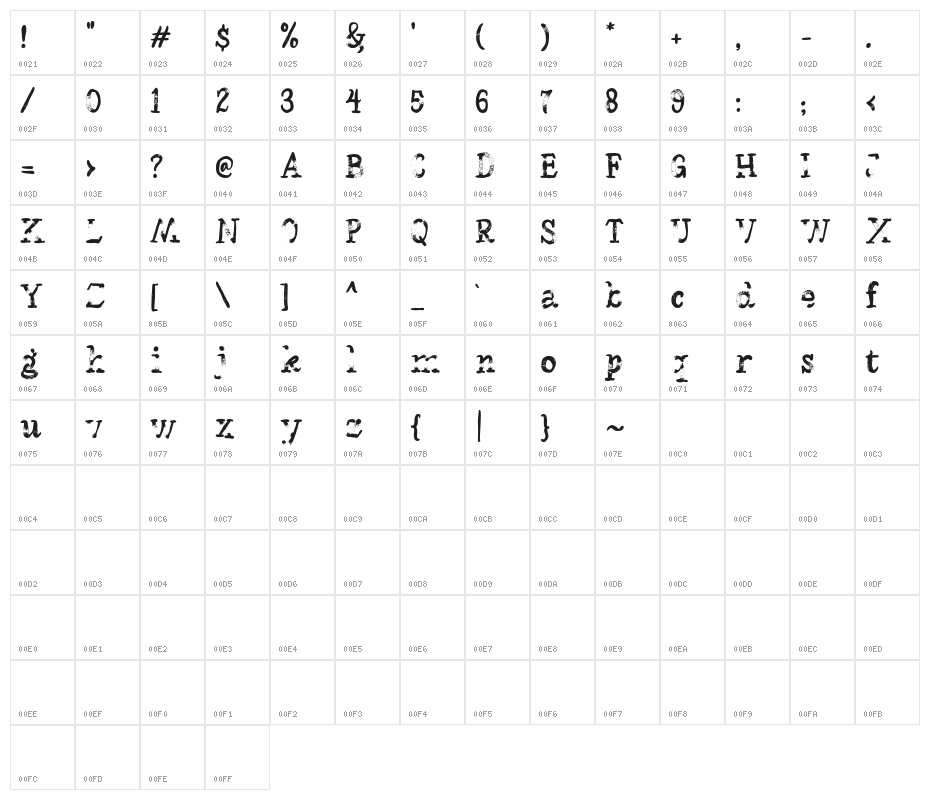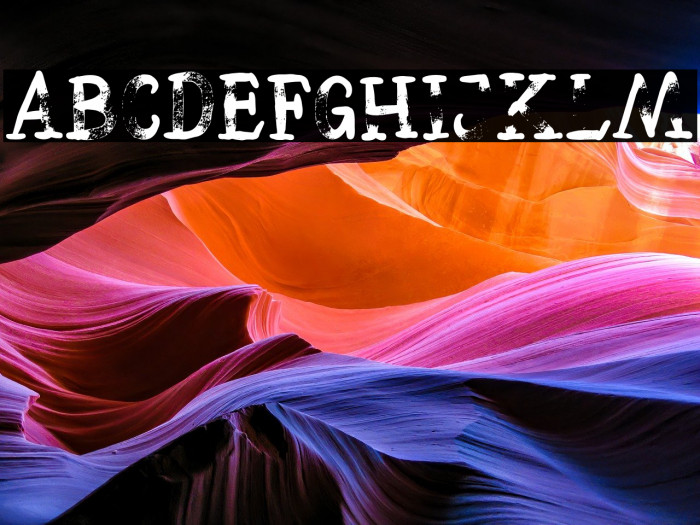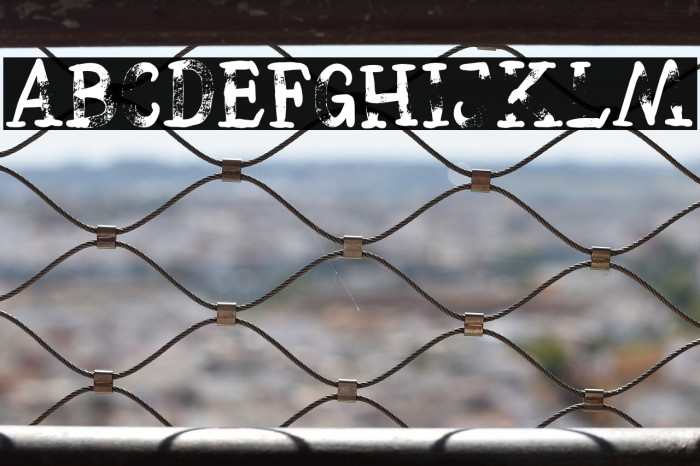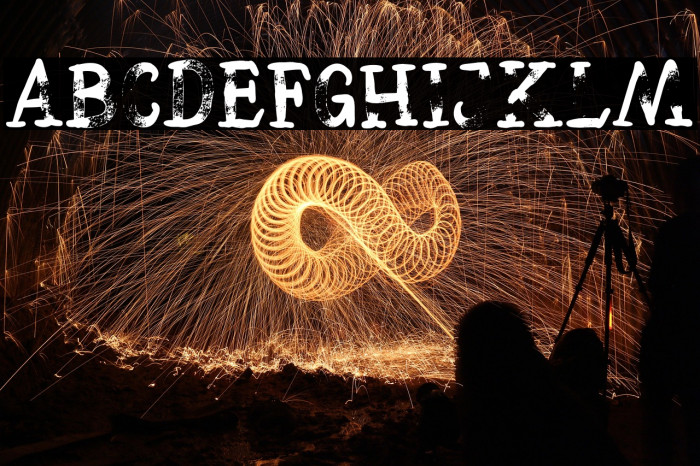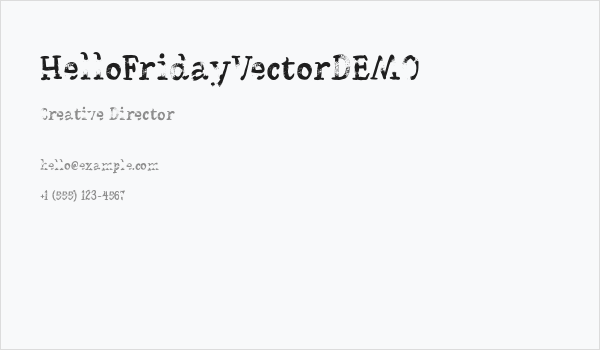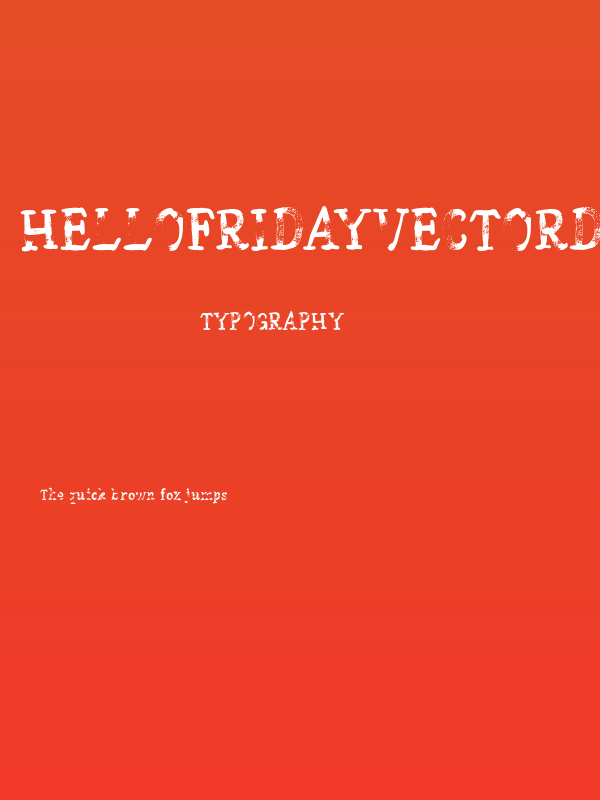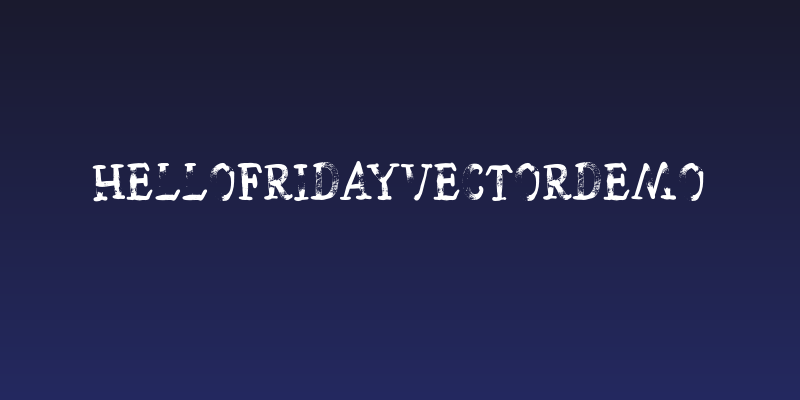
HelloFridayVectorDEMO Font
HelloFridayVectorDEMO Description
This font features a distressed, grunge style with a textured appearance that gives it a worn, vintage look. The characters are bold and have a rough, uneven texture that suggests a hand-crafted or weathered effect. The uppercase and lowercase letters maintain a consistent style, with slightly exaggerated serifs and a bold presence. Numbers and special characters follow the same design, ensuring uniformity across all glyphs. This font is ideal for projects that require a rugged, edgy aesthetic, such as posters, album covers, or branding for alternative or retro-themed products.
| Overall Style | Vintage |
| Proposed Projects | Perfect for posters, album covers, retro branding, and edgy graphic designs. |